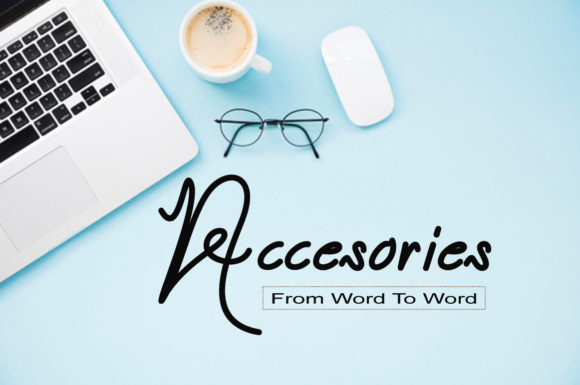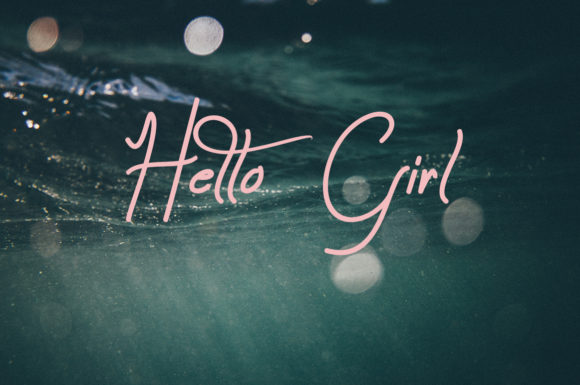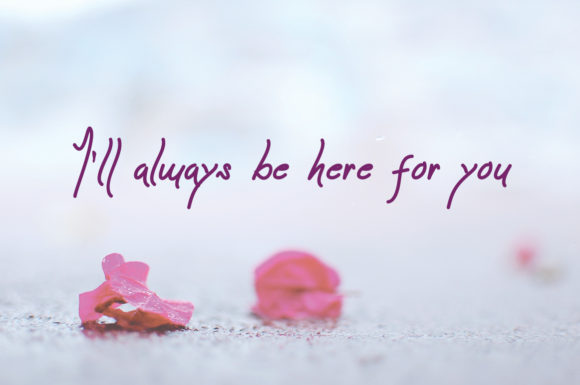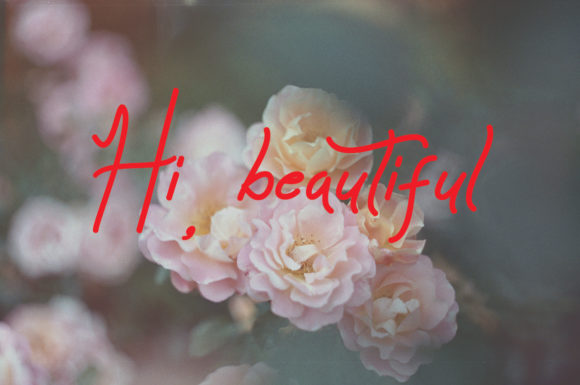
Introduction to Rilgomest Font
Have you ever stumbled upon a design project that sparks your creativity and sets your imagination free? For many designers, it’s that one special moment when everything falls into place, and the project comes alive. This is exactly what the Rilgomest Font promises to deliver – a flowing handwritten font that exudes elegance and sophistication, perfect for bringing your creative vision to life.
As a valuable design resource, the Rilgomest Font offers a unique opportunity for designers to take their projects to the next level. With its high-quality glyphs, stunning alternates, and transparent background, this font is a must-have for any creative project. Whether you’re working on a free download or a paid project, the Rilgomest Font is sure to impress with its timeless style and versatility.
Honest Review: Rilgomest Font
I recently had the chance to work with the Rilgomest Font on a creative project and I must say, I was quite impressed. The font is a high-quality design resource that offers a unique aesthetic that’s perfect for modern designs.
What works well: ✨ The Rilgomest Font is a versatile font that can be used for a wide range of creative projects, from logos to brochures. The font is also available for free download, which is a huge plus for designers on a budget. I also appreciated the transparent background option, which makes it easy to integrate the font into any design.
- Unique aesthetic
Limitations: ⚠️ While the Rilgomest Font is a great addition to any designer’s toolkit, it does have some limitations. The font may not be suitable for large-scale text, and it may not work well with certain font pairing combinations.
Overall impression: I was pleasantly surprised by the Rilgomest Font. It’s a great design resource that offers a lot of value for designers. With its unique aesthetic and high-quality design, it’s definitely worth checking out for your next creative project.
Getting the Most Out of Rilgomest Font
For the best results, use the Rilgomest Font in conjunction with other high-quality design resources, such as graphics and images. This will help to create a cohesive and visually appealing design. Additionally, be sure to use the font in a way that is consistent with the overall aesthetic of your creative project.
The Rilgomest Font is a versatile design resource that can be used in a variety of creative projects, including logos, branding materials, social media graphics, and presentations. Its high-quality design and transparent background make it an ideal choice for designers looking to add a touch of sophistication to their work.